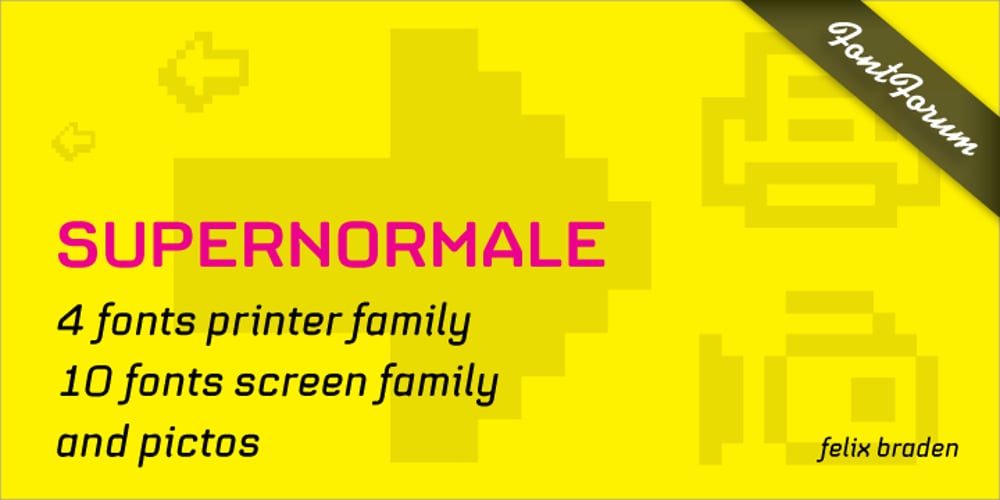
Supernormale Font Family was designed by Felix Braden and published by URW Type Foundry. Supernormale contains 15 styles and family package options. Type is a very important element within the corporate design process. A corporate font that works in all media (screen, print, vinyl etc) delivers a very high level of recognition and resultingly, identification with the company.